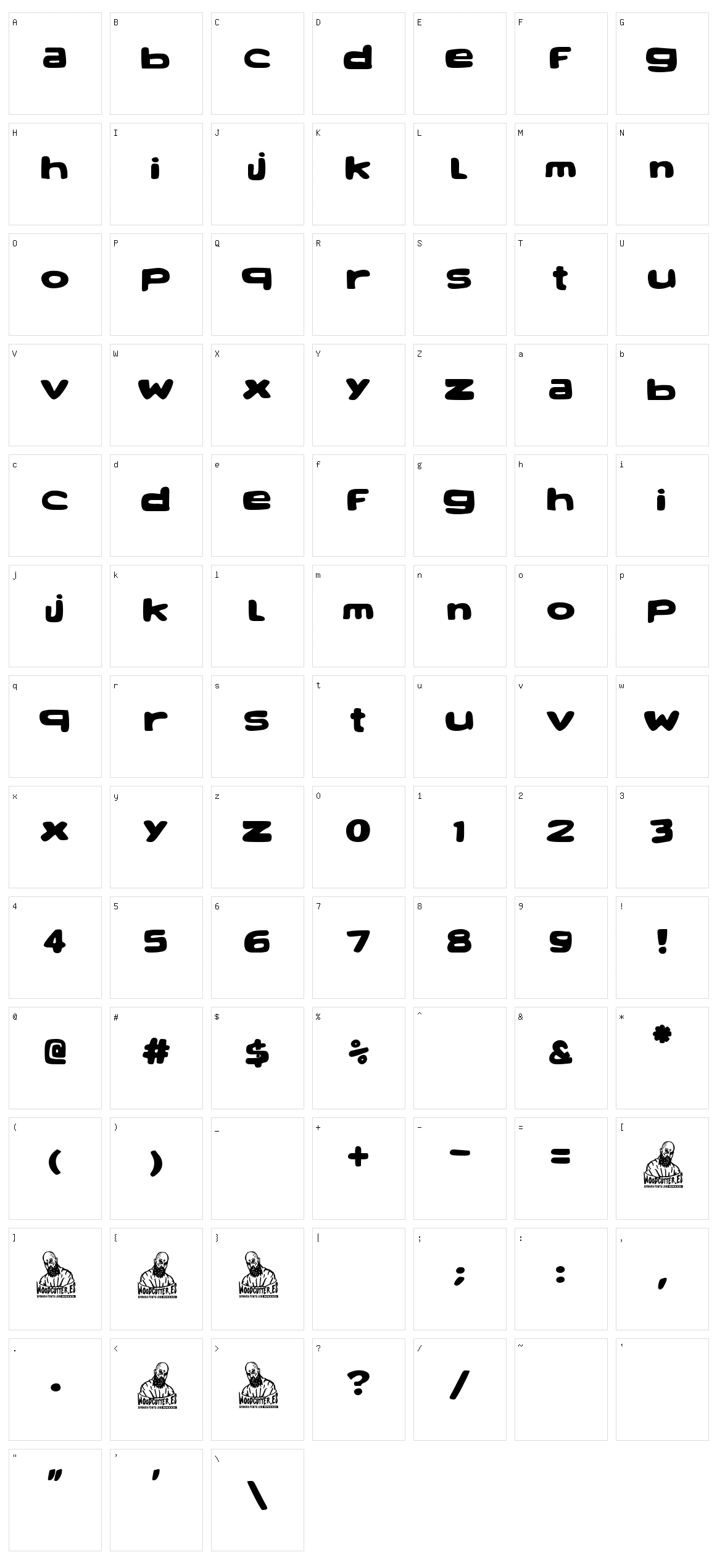
The free font Bambino Piccolino is carefully designed by Woodcutter, showcasing a thoughtful balance of creativity and usability and falls under the Cartoon font style. When you download the ZIP file, it contains only 44.86 KB of font files, making it lightweight and quick to download. Please review the license details below to understand permitted usage and distribution rights. If license information is not available, we recommend using this font for personal projects only or contacting the author directly for commercial usage permissions.